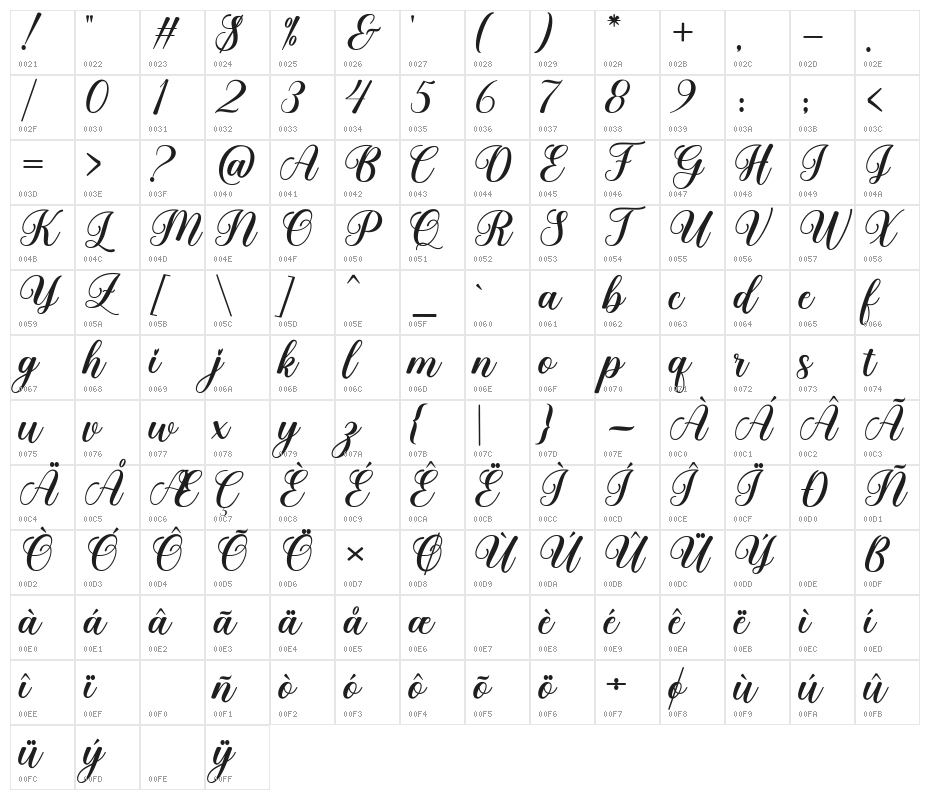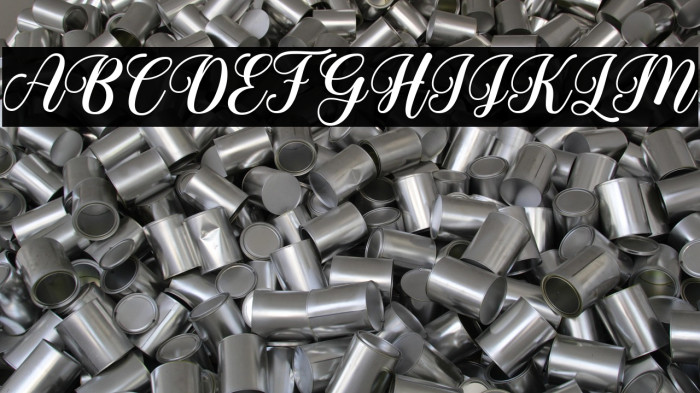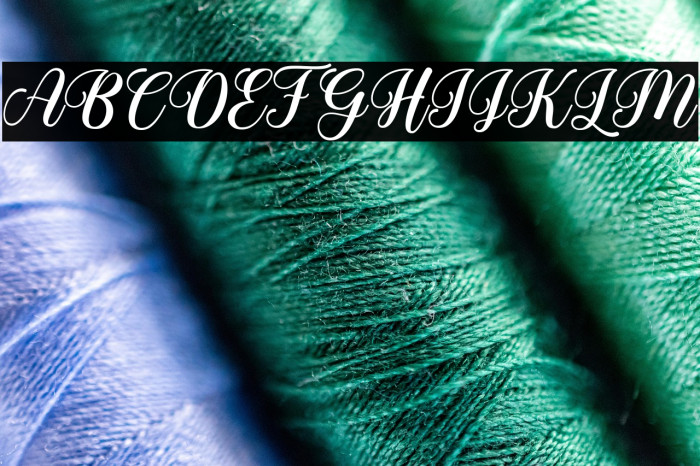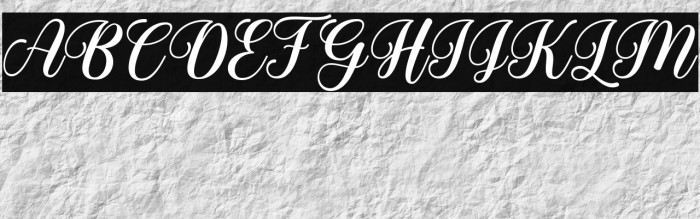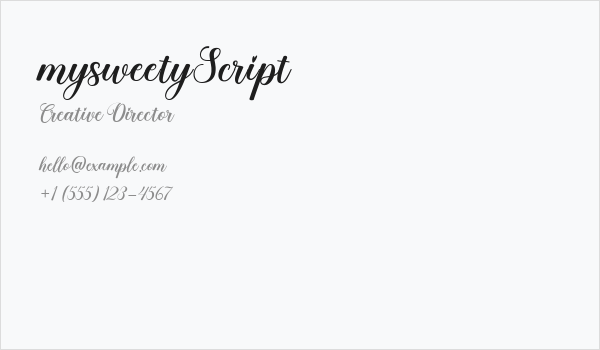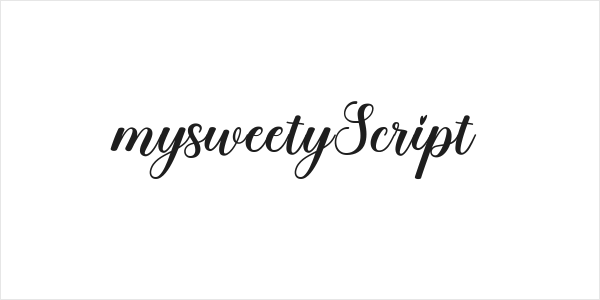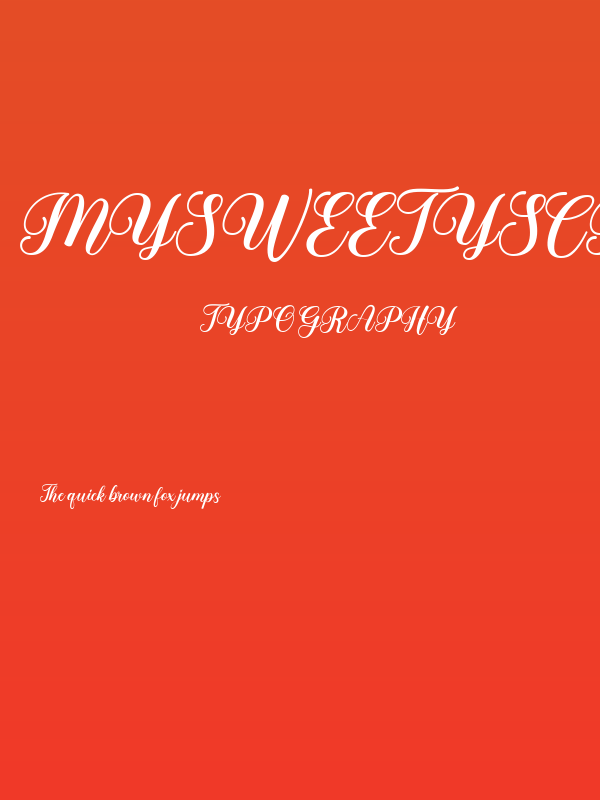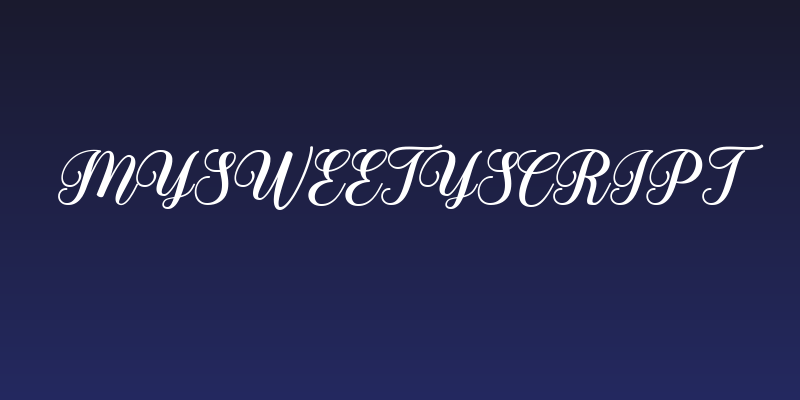
mysweetyScript Font
mysweetyScript Description
This elegant script font features flowing, interconnected letters that exude a sense of sophistication and grace. The uppercase letters are ornate with delicate curves, while the lowercase letters maintain a consistent fluidity, making it ideal for creating a cohesive and stylish look. The numerals are designed with a similar flair, ensuring they blend seamlessly with the alphabet. Special characters are included, adding versatility to the font's application. The overall design is both decorative and functional, suitable for a variety of creative projects.
| Overall Style | Elegant |
| Use Case | Logos, Invitations, Decorative text |
| Proposed Projects | Ideal for wedding invitations, branding, greeting cards, and elegant packaging designs. |